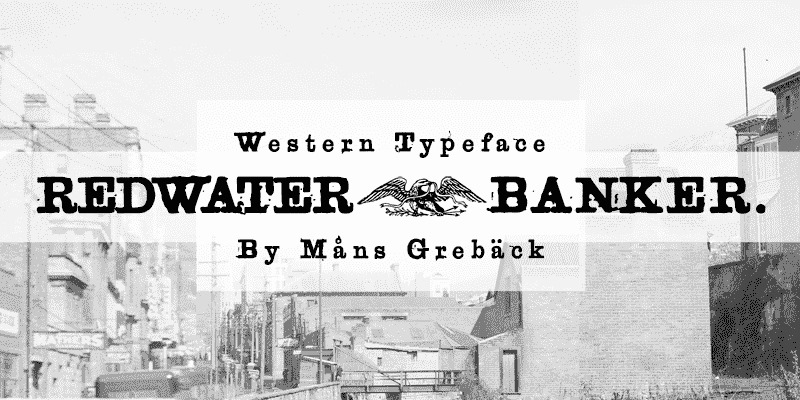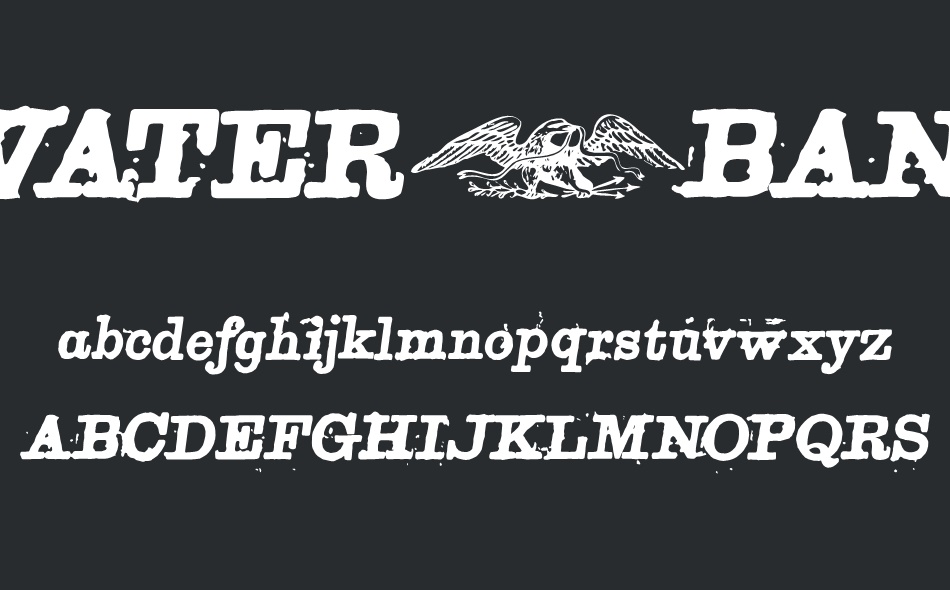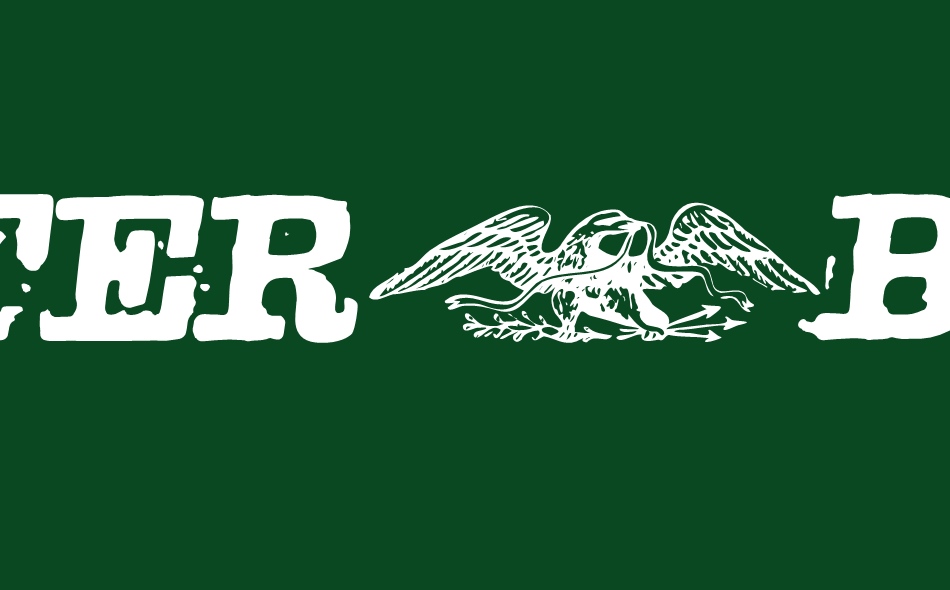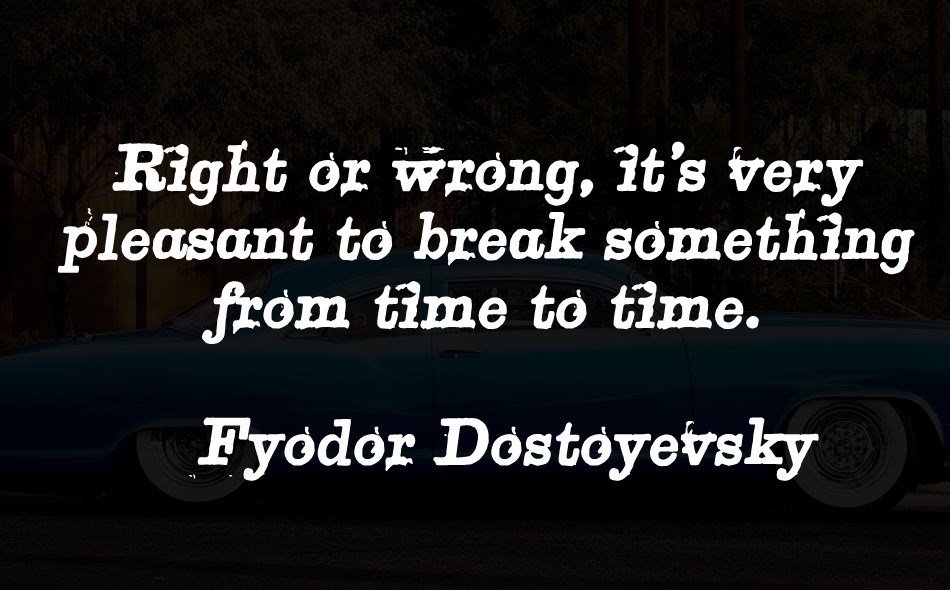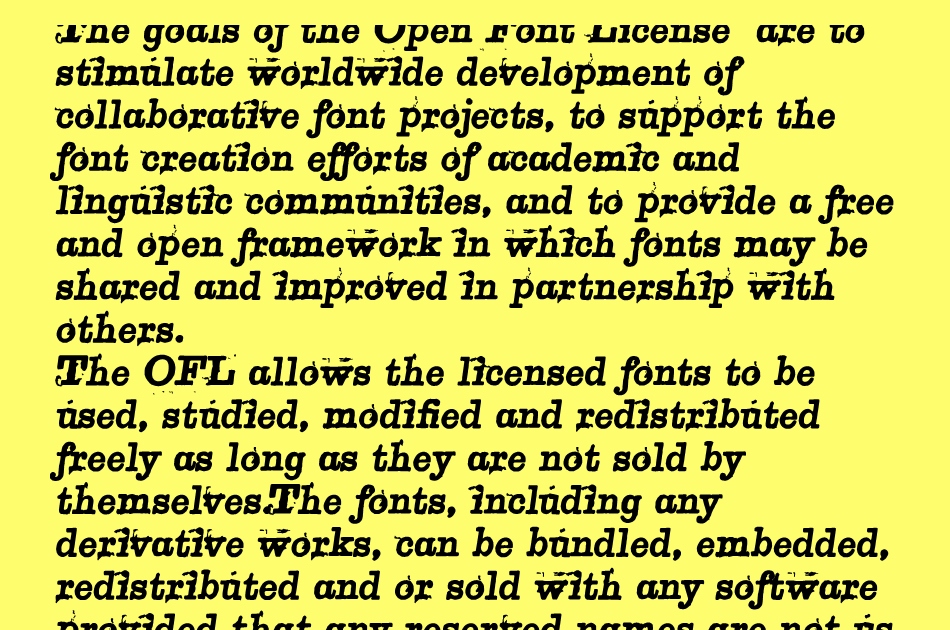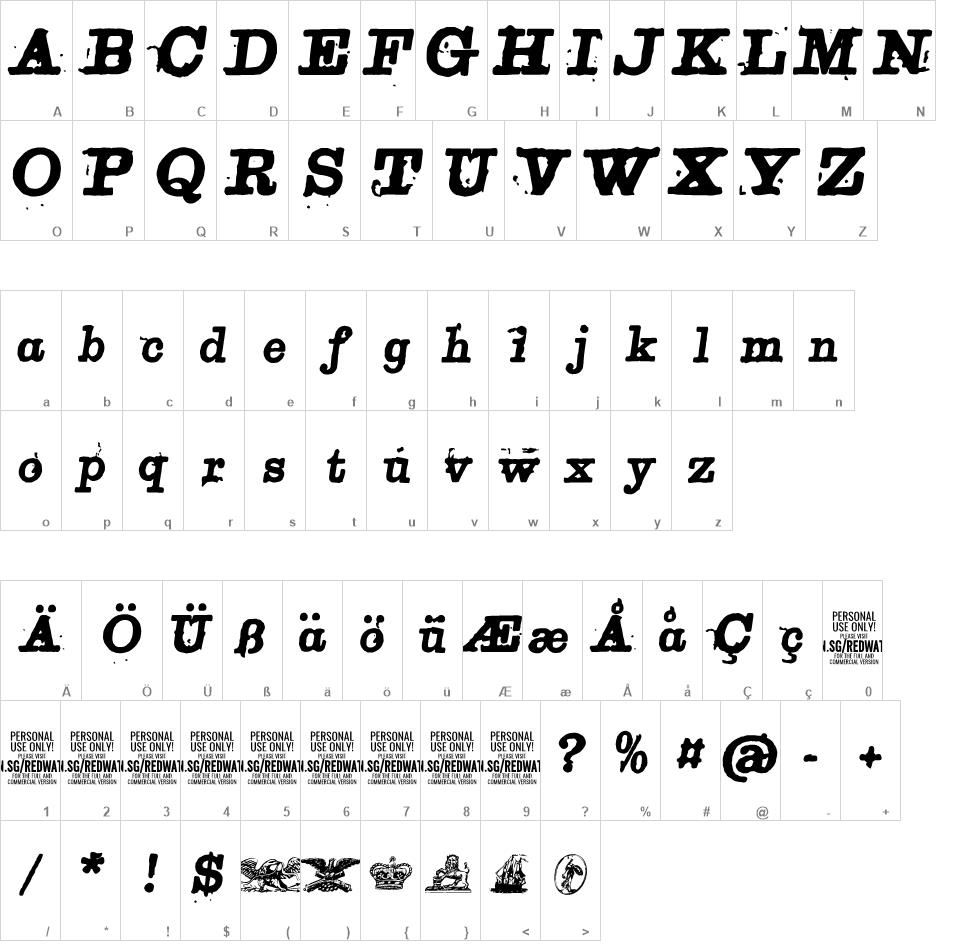
Redwater Banker font
Use the parenthesis characters ( ) [ ] { } to make symbols like eagles and crowns.
Redwater Banker is a Western slab-serif typeface.
A historical frontier lettering, this font is rough and eroded, with a tough and confident attitude.
Redwater Banker is a serif font with a strong cowboy personality, reminiscent of a bank or saloon in the Old West.
Use the parenthesis characters ( ) [ ] { } to make patriotic symbols like eagles and crowns.
Redwater Banker comes in three styles:
The normal Regular, the slanted Italic, plus the bonus Corner font for a decorative edge.
The font is built with advanced OpenType functionality and has a guaranteed top-notch quality, containing stylistic and contextual alternates, ligatures and more features; all to give you full control and customizability.
It has extensive lingual support, covering all Latin-based languages, from North Europe to South Africa, from America to South-East Asia.
It contains all characters and symbols you'll ever need, including all punctuation and numbers.